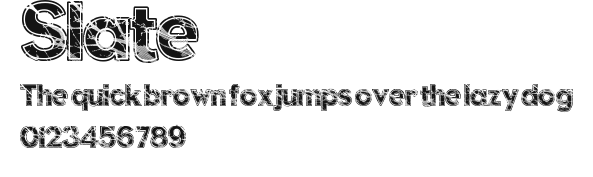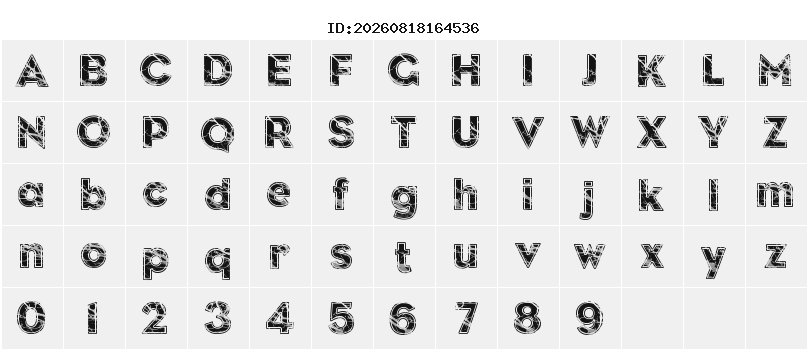
Slate Preview
• Font Name: Slate
• Font ID: Slate:Version 1.00
• Full Font Name: Slate
• Version: Version 1.00 October 19, 2015, initial release
• PostScript Name: Slate
• Character Count: 78
• Designer: Max Infeld Xerographer Fonts
• Manufacturer: Xerographer Fonts
• Description: Made by Xerographer Fonts in Chico,California
About Slate.ttf
Slate.ttf is a modern, elegant sans-serif font designed for ultimate readability and visual harmony. Perfect for branding, headlines, web design, and print materials.